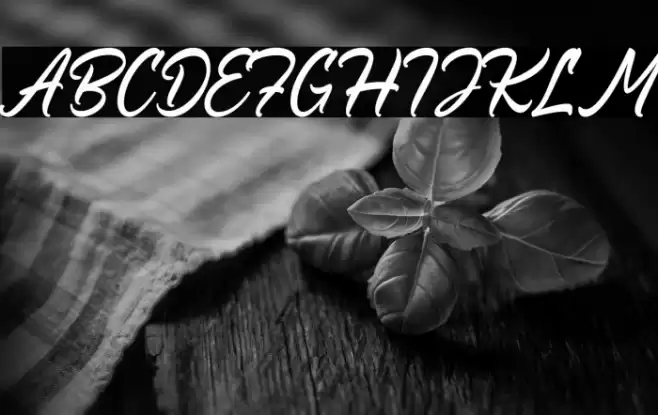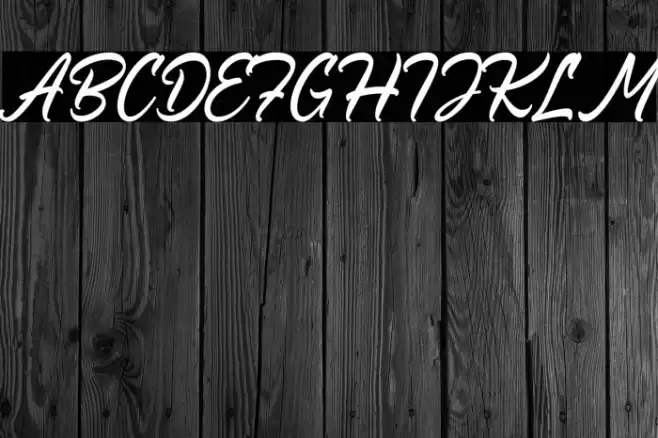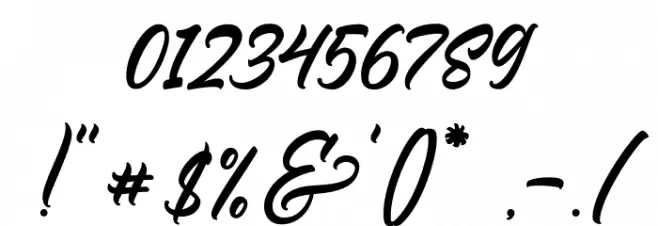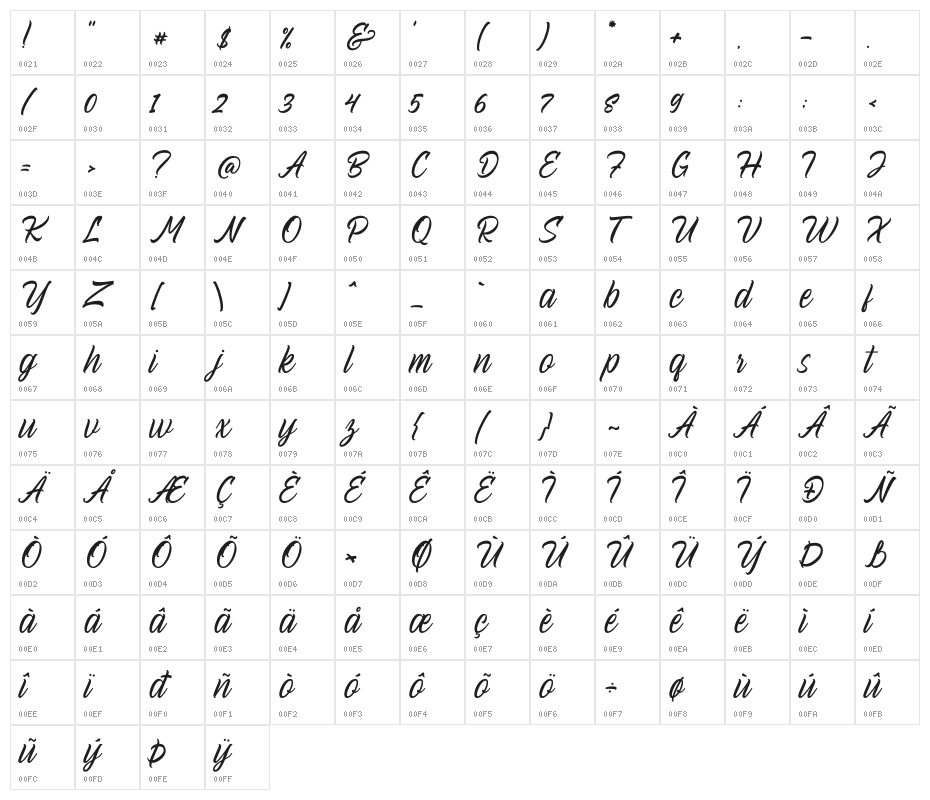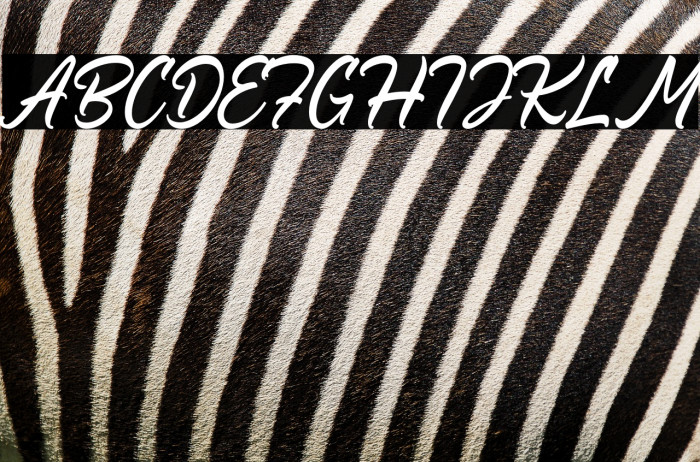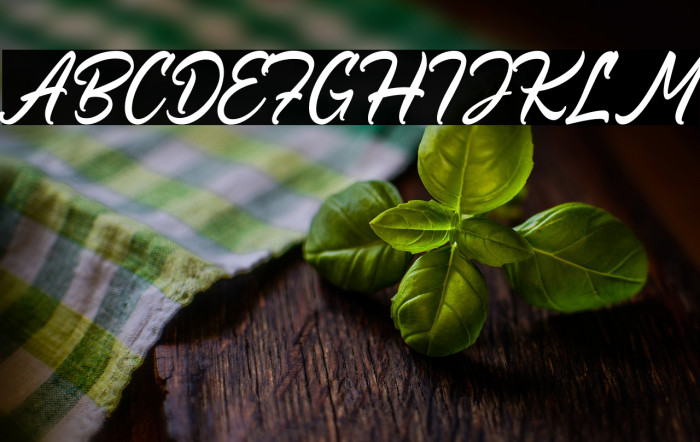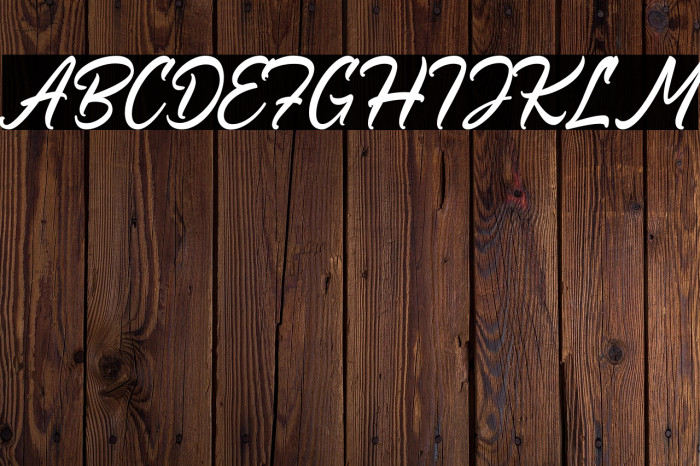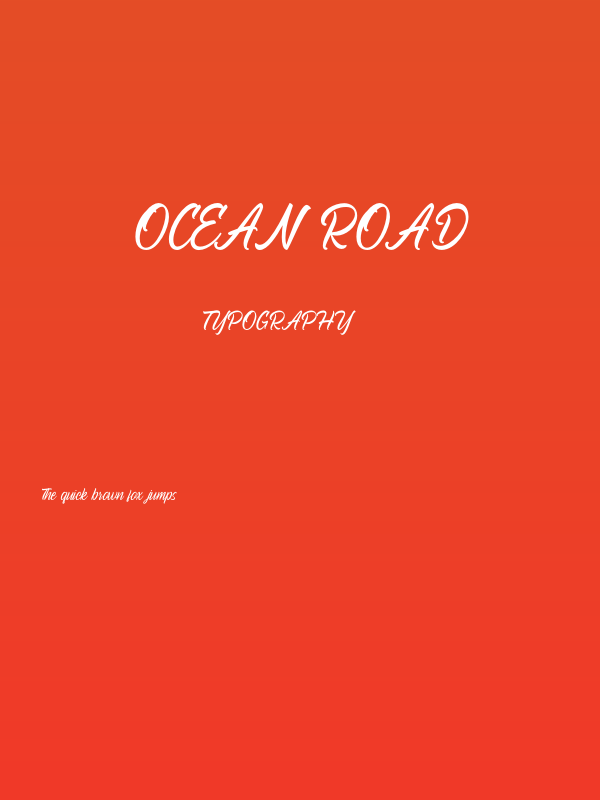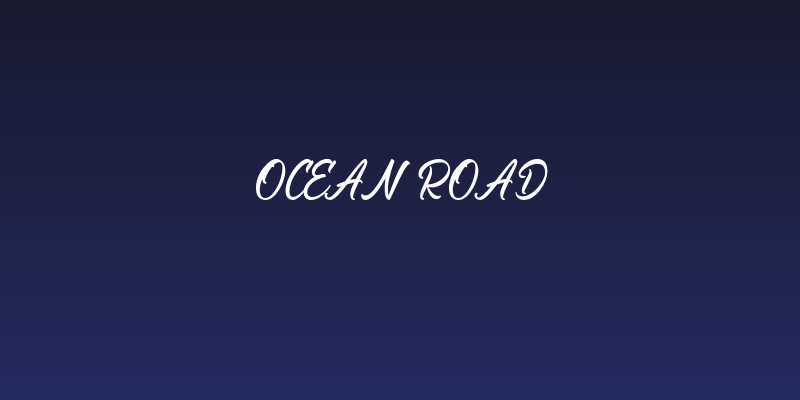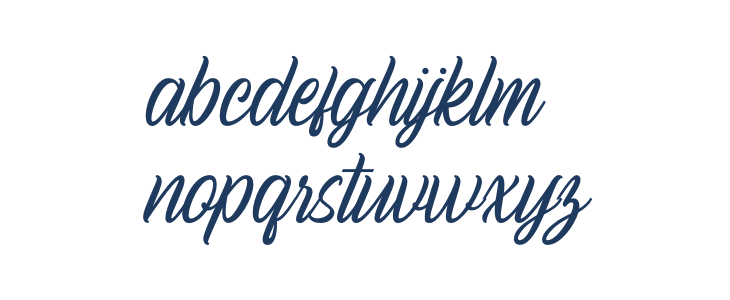
Ocean Road Font
Ocean Road Description
This font exudes a dynamic and fluid style, characterized by its elegant cursive script. The letters are interconnected with smooth, flowing strokes that give it a sense of movement and grace. The uppercase letters are bold and prominent, while the lowercase letters maintain a consistent rhythm and balance. The numerals are designed to match the overall script style, ensuring a cohesive look. Special characters are integrated seamlessly, enhancing the font's versatility. This font is perfect for projects that require a touch of sophistication and flair.
A dynamic cursive script font with elegant, flowing strokes from Uncategorized fonts.
- Font: Ocean Road
- Proposed Projects: Ideal for wedding invitations, elegant branding, personal signatures, and artistic posters.
- Overall Style: Elegant, Dynamic
- Use Case: Logos, Invitations, Artistic Designs